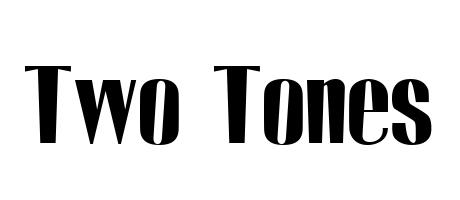
Two Tones
Two Tones is a bold, sans-serif font. Its clean lines and strong, even weight convey a sense of modern simplicity and directness. The letters are slightly condensed, giving the word a compact yet impactful presence. The overall style suggests strength and confidence.